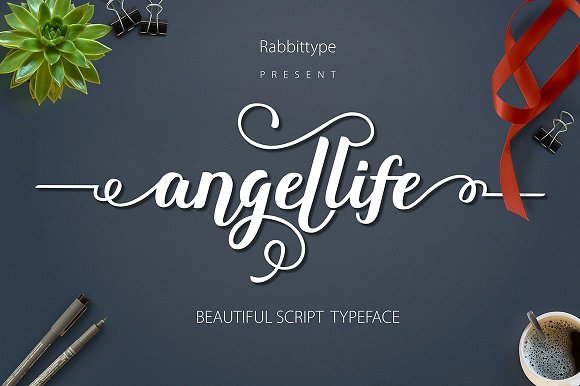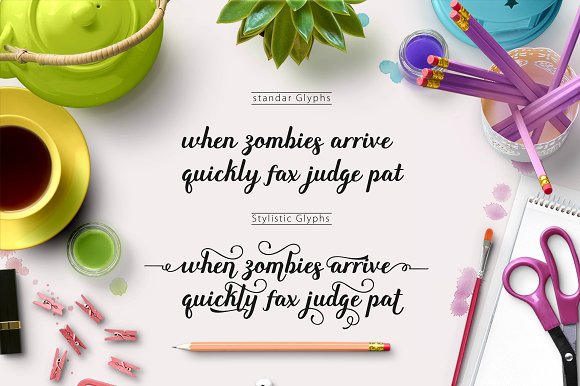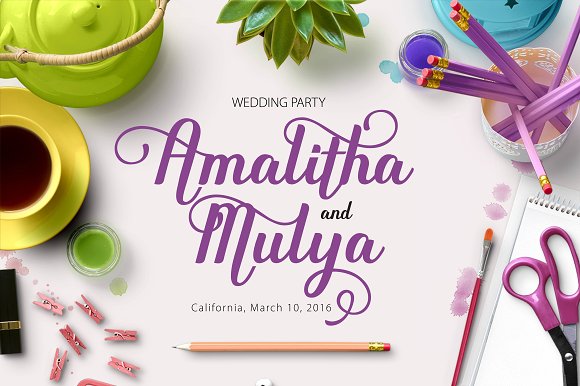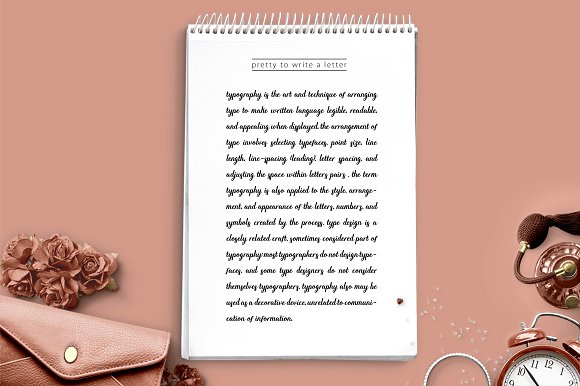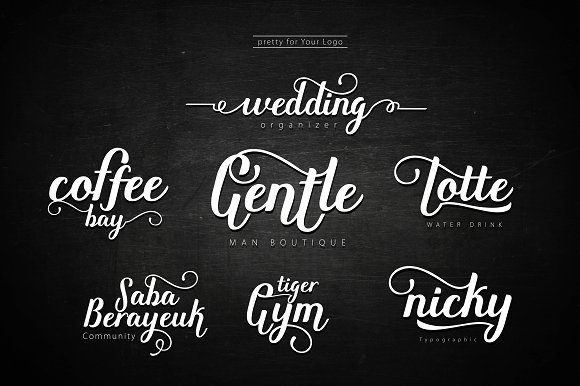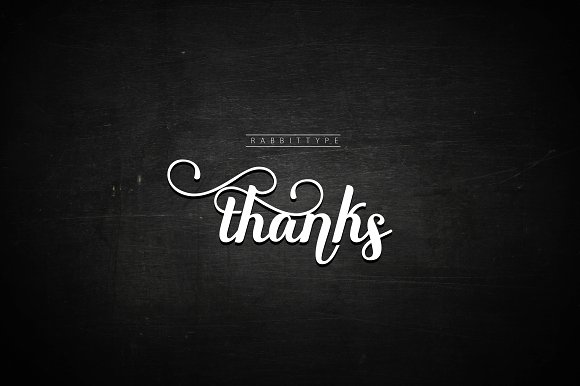
Discovering the Perfect Script: Angellife Beauty Font
Have you ever been working on a design project and suddenly, the perfect font just pops into your mind? It’s a feeling that’s hard to describe, but it’s like a spark of creativity that sets your imagination ablaze. For designers, finding the right font can make all the difference between a mediocre design and a stunning one. And today, we’re going to explore one such font that’s sure to captivate your audience – Angellife Beauty Font.
This beautiful handwritten script is a fluid font that works well in various projects, from marketing and branding to craft projects. Its professional look makes it easy to read and gives it a polished touch. What makes Angellife Beauty Font truly valuable for designers is its versatility and ease of use. Whether you’re creating a logo, a brochure, or a social media graphic, this font is sure to elevate your design to the next level.
Angellife Beauty Font Key Features
- Unique Characteristics: This font features elegant, hand-drawn designs with intricate details, making it perfect for beauty and fashion-related projects.
- Font Style: This font comes in a single style, but it’s available in various weights, including Regular, Bold, and Light, allowing for versatility in design applications.
Designer Review: Angellife Beauty Font
Overall, I think the Angellife Beauty Font is a beautiful addition to any design project. ✨ The font is elegant, refined, and has a unique touch that makes it stand out. It’s perfect for creating a luxurious and high-end aesthetic.
- ✨ Elegant and refined design makes it perfect for high-end projects
- ✨ Unique touch that sets it apart from other fonts
- ✨ Suitable for a variety of applications, including logos, headings, and body text
One of the things I appreciate about the Angellife Beauty Font is its versatility. It works well in both digital and print applications, making it a great choice for designers who need a font that can adapt to different mediums.
- ⚠️ Limited character set, which may make it difficult to use for extensive text
- ⚠️ Not as readable at smaller font sizes, which can make it challenging to use for body text
- ⚠️ May not be suitable for projects that require a more casual or playful tone
Overall, I would recommend the Angellife Beauty Font to designers who are looking for a luxurious and refined aesthetic. While it may have some limitations, its unique design and versatility make it a valuable addition to any design project.
Getting the Most Out of Angellife Beauty Font
Here are some tips for getting the most out of Angellife Beauty Font:
- Experiment with different font sizes and colors to create a visually appealing design.
- Combine Angellife Beauty Font with other fonts to create a unique and stylish look.
- Use Angellife Beauty Font for headings and titles to add a touch of elegance.
Here are some common use cases for Angellife Beauty Font:
- Beauty and wellness branding.
- Fashion and lifestyle design.
- Wedding and event invitations.
- Use Angellife Beauty Font for the wedding invitation’s main text, such as the bride and groom’s names and the wedding date.
- Combine the font with a delicate floral pattern or a watercolor effect to create a romantic and dreamy atmosphere.
- Pair the font with a bold, modern font for the invitation’s background text, such as the venue and time.
- Consider adding a photo of the couple or a beautiful landscape to enhance the invitation’s visual appeal.
- Use Angellife Beauty Font for the blog’s headings and subheadings, such as “Skincare Routine” or “Healthy Recipes.”
What is the recommended font size for optimal readability with the Angellife Beauty Font?
For optimal readability, we recommend using font sizes between 12pt and 24pt. However, the ideal font size may vary depending on the specific use case, such as digital screens or print materials. Experiment with different font sizes to find the best balance for your design.